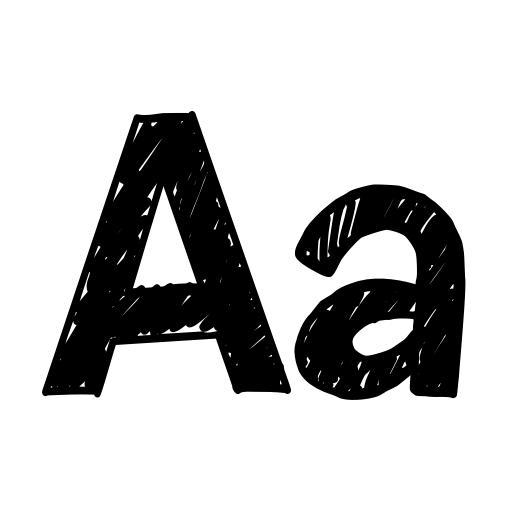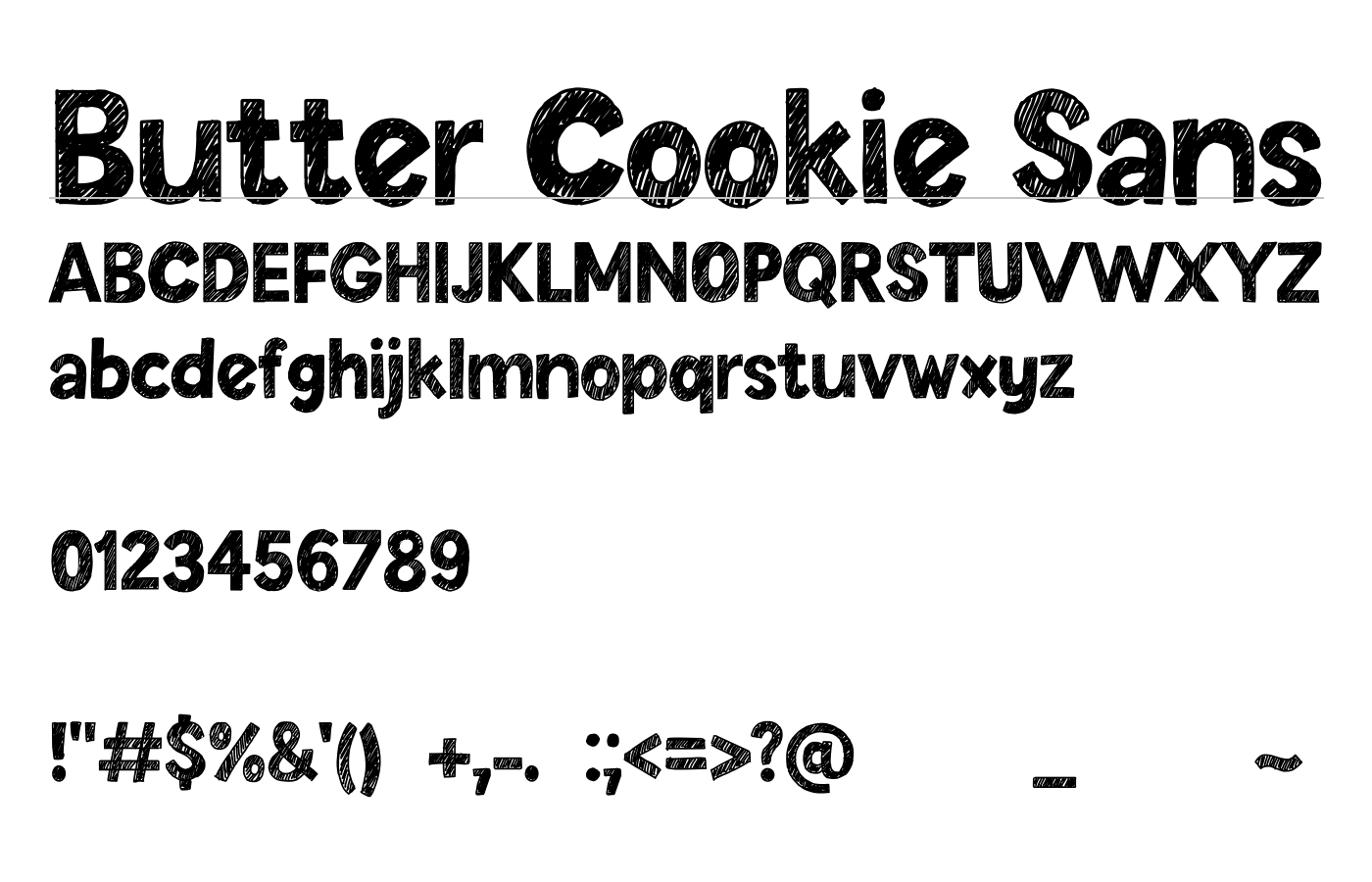
Butter Cookie Sans is a bold, playful sans serif font featuring a hand-drawn, textured style that adds a casual and friendly touch. Its rounded letterforms and moderate x-height make it approachable and easy to read, ideal for fun, informal designs like children's books, packaging, and eye-catching headlines. This font brings a sense of warmth and creativity, perfect for brands seeking a cheerful and inviting personality.
Butter Cookie Sans Font